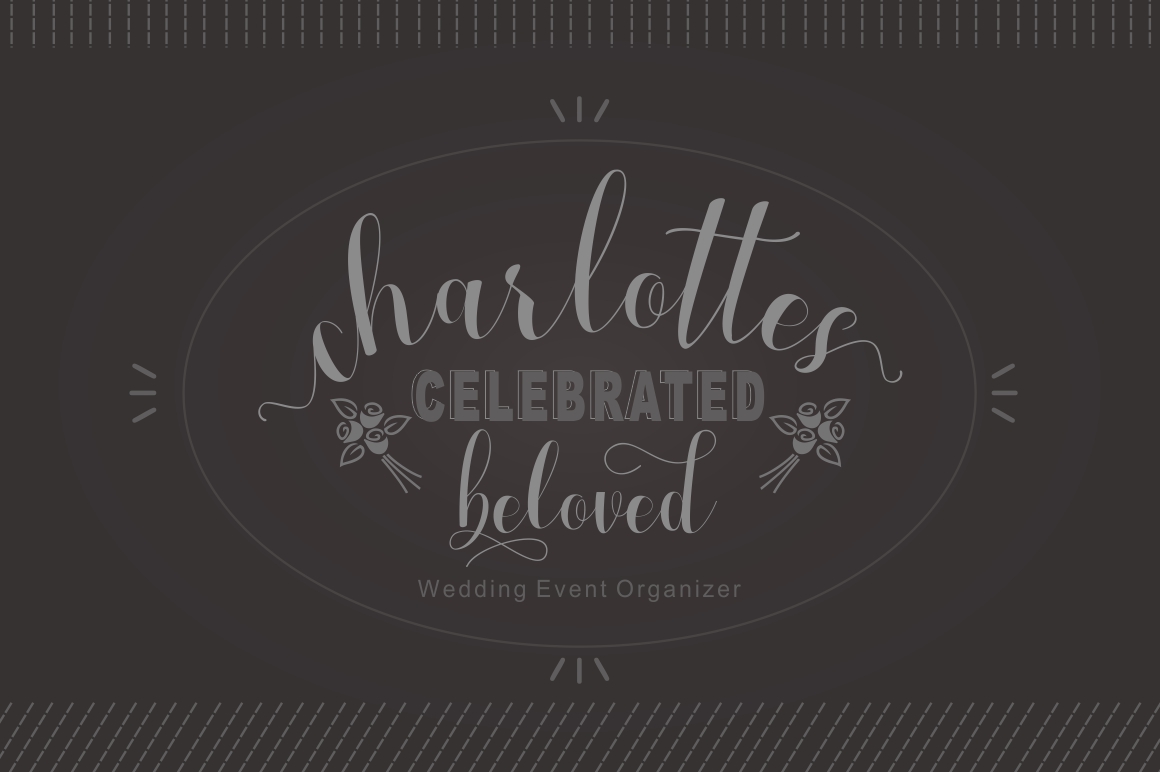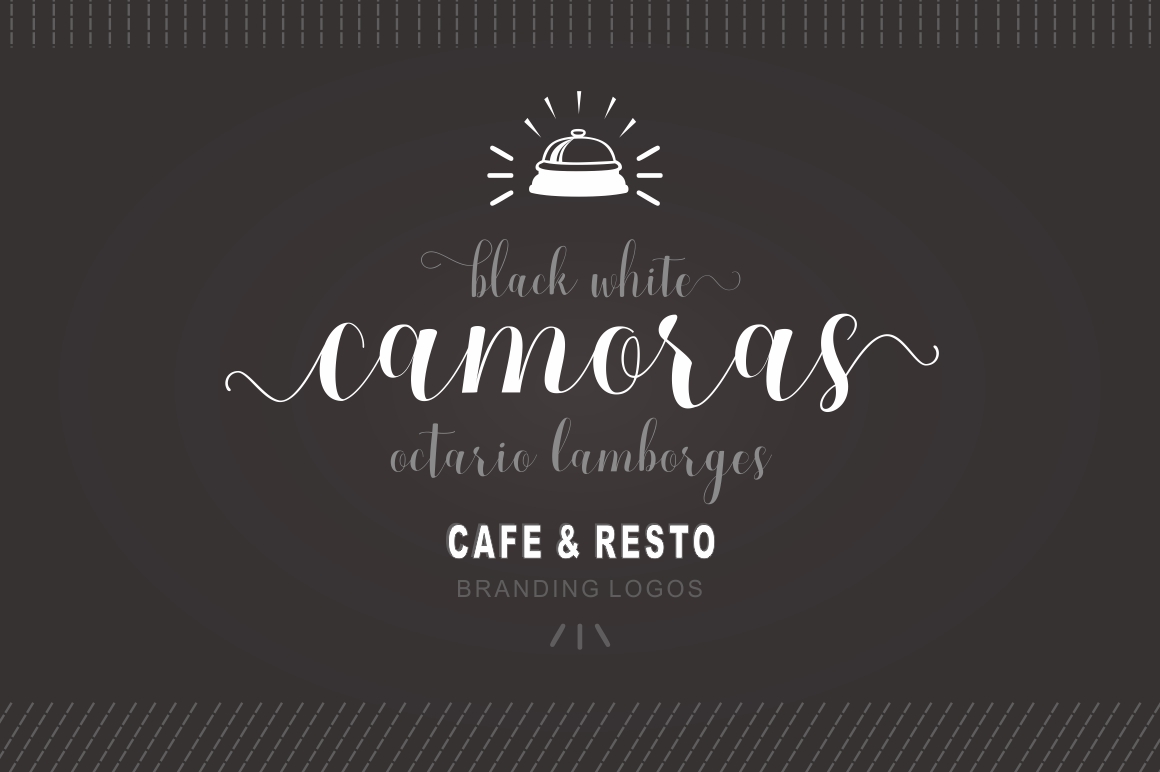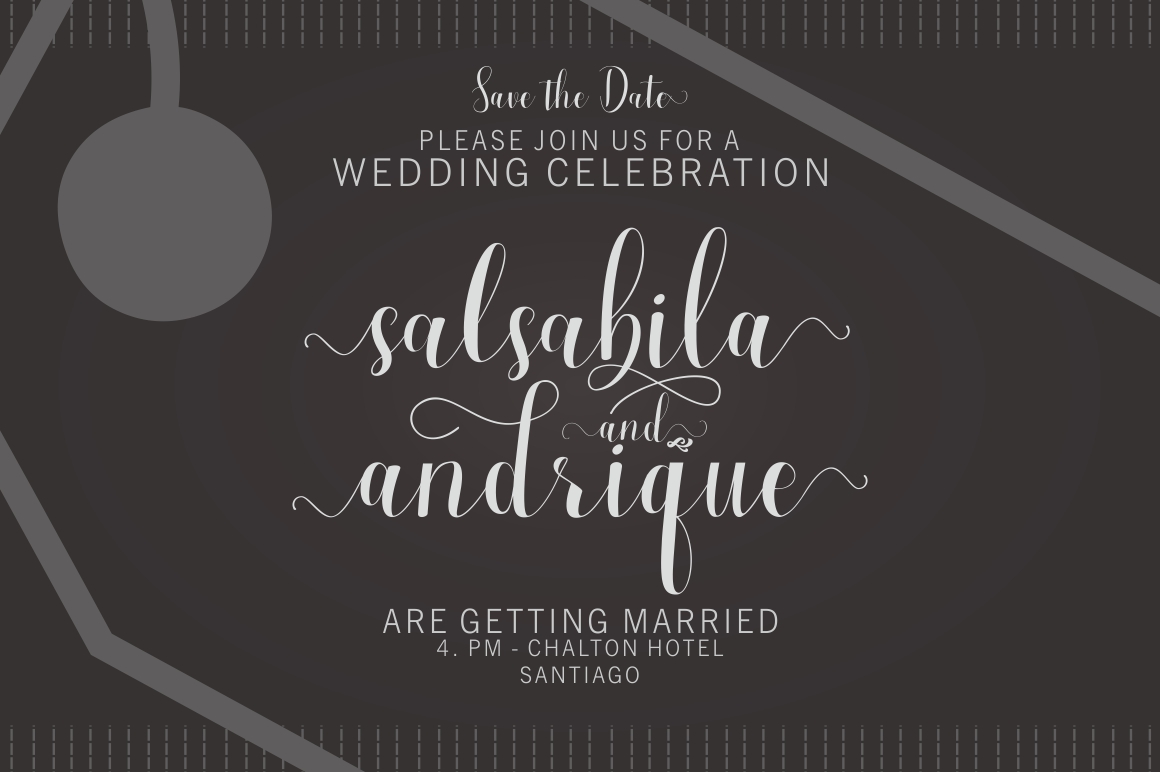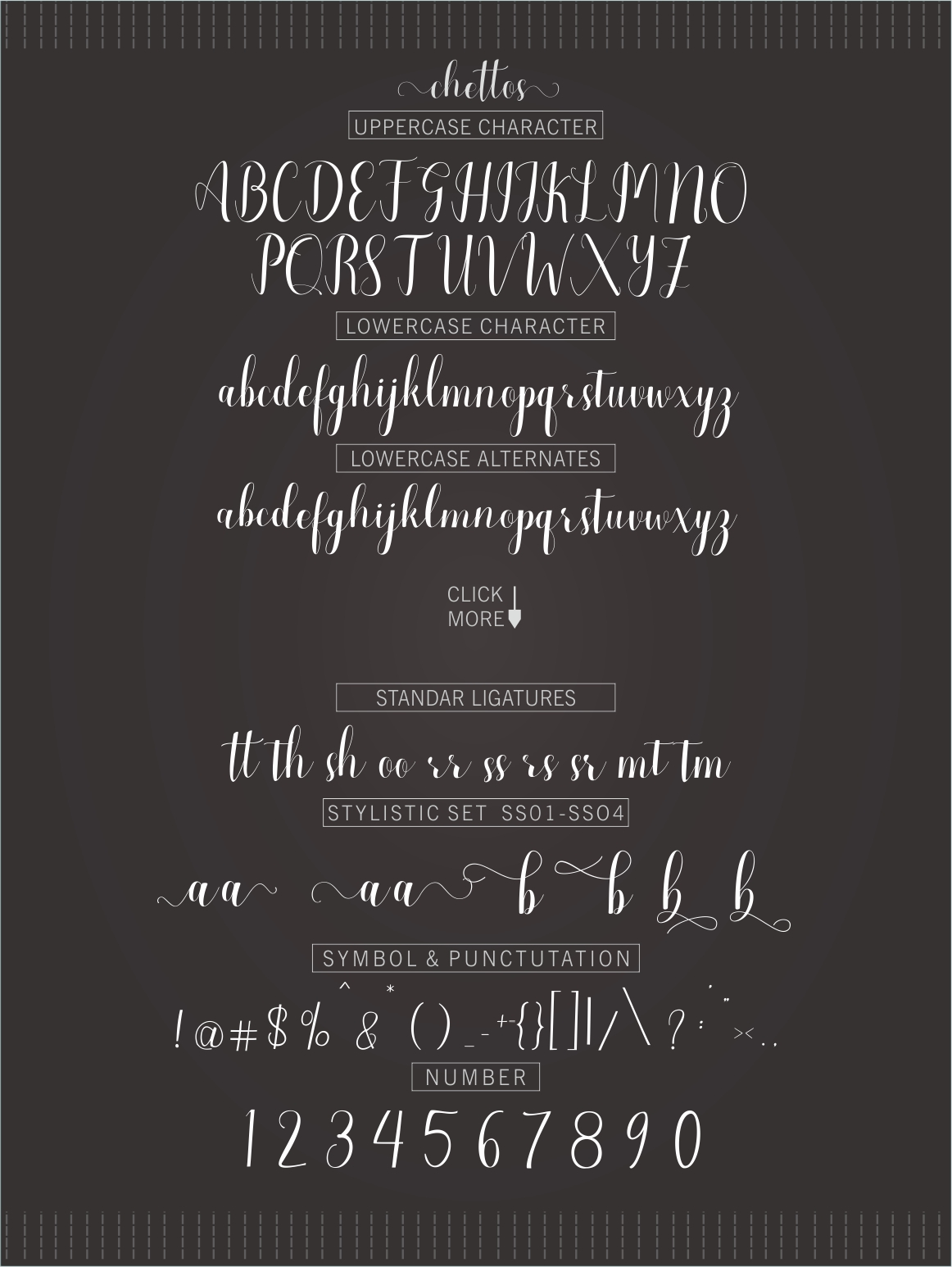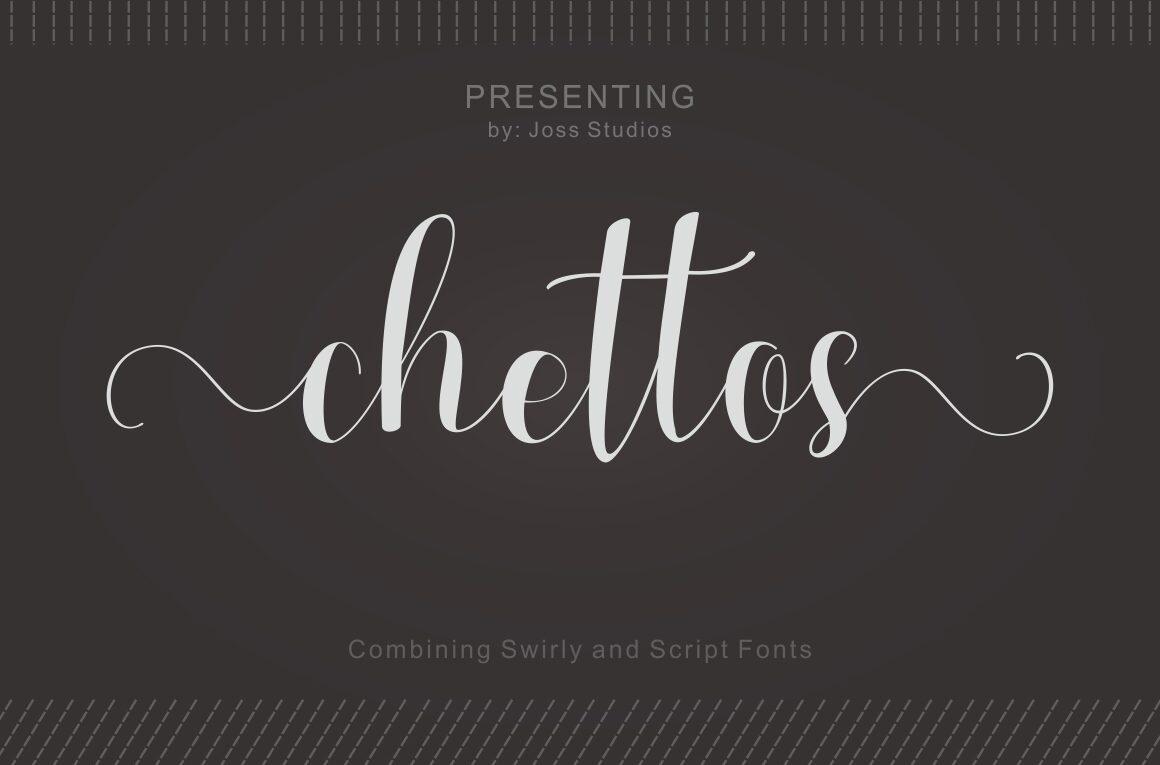
Introducing Chitos Font: Elevate Your Designs with Elegant Hand-Lettered Calligraphy
In the world of typography, few fonts capture the essence of elegance and sophistication as beautifully as Chitos Font. This stunning hand-lettered calligraphy font is designed to bring a touch of natural flow and refinement to your designs. With over 250 unique glyphs at your disposal, Chitos offers unparalleled versatility, making it an indispensable tool for designers and crafters alike.
The Charm of Hand-Lettered Calligraphy
Chitos Font is a masterpiece of hand-lettered calligraphy, boasting a distinctive charm that sets it apart from more conventional fonts. Each letter is carefully crafted to exude a sense of fluidity and movement, as if written with a brush or a quill. This organic feel adds a personal touch to any design, making it perfect for projects that require a bit of character and personality.
Key Features of Chitos Font
• Natural Flow: Chitos Font is designed to mimic the natural flow of handwriting, giving your designs a sense of authenticity and warmth.
• Over 250 Unique Glyphs: With a vast range of glyphs at your disposal, you can create complex and visually appealing designs with ease.
• Hand-Lettered Calligraphy: Each letter is carefully crafted to showcase the beauty of hand-lettered calligraphy.
• Elegant and Sophisticated: Chitos Font is perfect for designs that require a touch of elegance and sophistication.
Uses for Chitos Font
Chitos Font is incredibly versatile, making it suitable for a wide range of design projects. Here are just a few ideas to get you started:
• Wedding Invitations: Add a touch of romance and elegance to your wedding invitations with Chitos Font.
• Branding and Packaging: Use Chitos Font to create eye-catching logos, labels, and packaging that stands out from the crowd.
• Stationery and Greeting Cards: Create beautiful stationery and greeting cards with Chitos Font.
• Digital Art and Illustrations: Add a touch of sophistication to your digital art and illustrations with Chitos Font.
Why Choose Chitos Font?
With so many fonts available, why choose Chitos Font? Here are just a few reasons why designers and crafters love Chitos:
• Unique and Distinctive: Chitos Font is unlike any other font on the market, offering a unique and distinctive look that sets it apart.
• Ease of Use: With over 250 glyphs at your disposal, Chitos Font is incredibly easy to use, even for complex designs.
• High-Quality Design: Chitos Font is designed to the highest standards, ensuring crisp and clear results in any design.
In conclusion, Chitos Font is a stunning hand-lettered calligraphy font that offers a world of creative possibilities. With its natural flow, elegant design, and versatility, it’s the perfect choice for designers and crafters looking to elevate their designs. Whether you’re working on a wedding invitation, branding project, or digital art piece, Chitos Font is sure to impress.